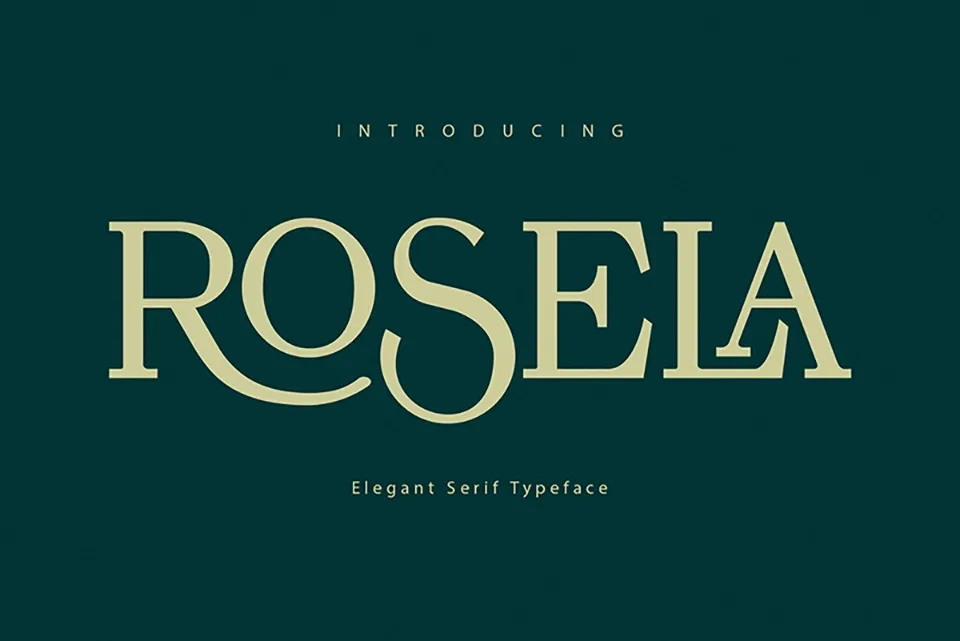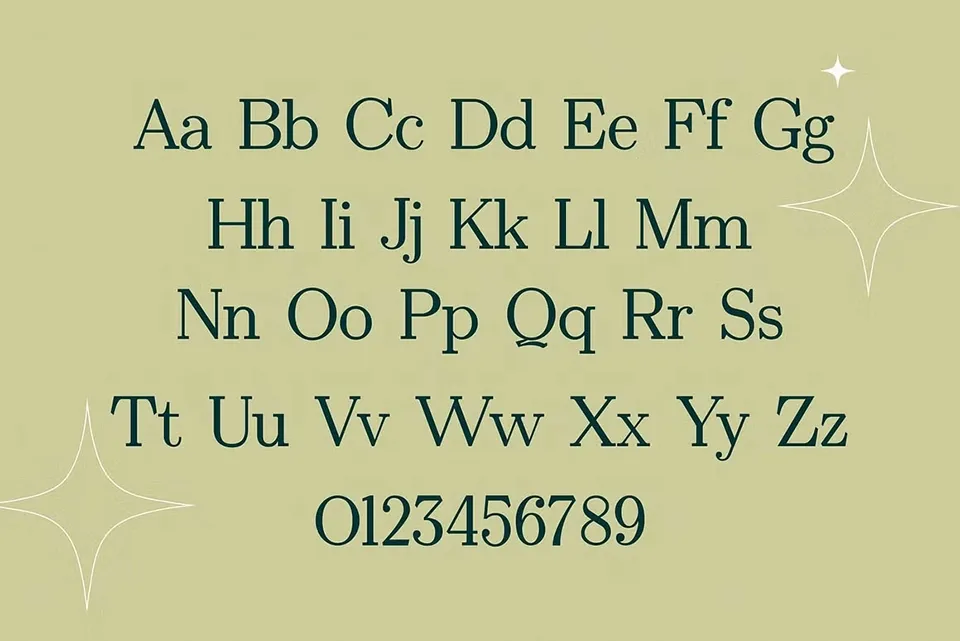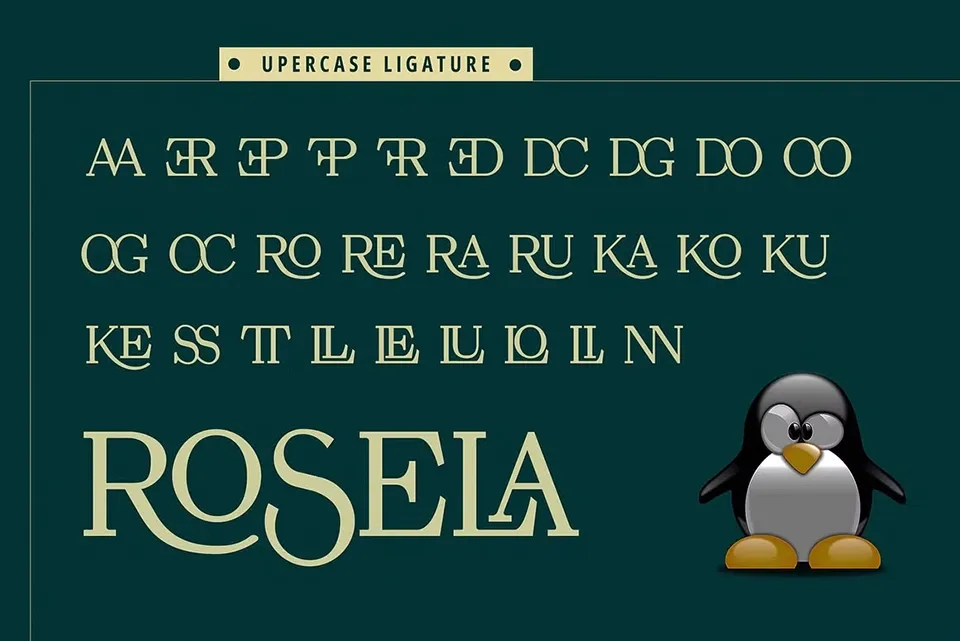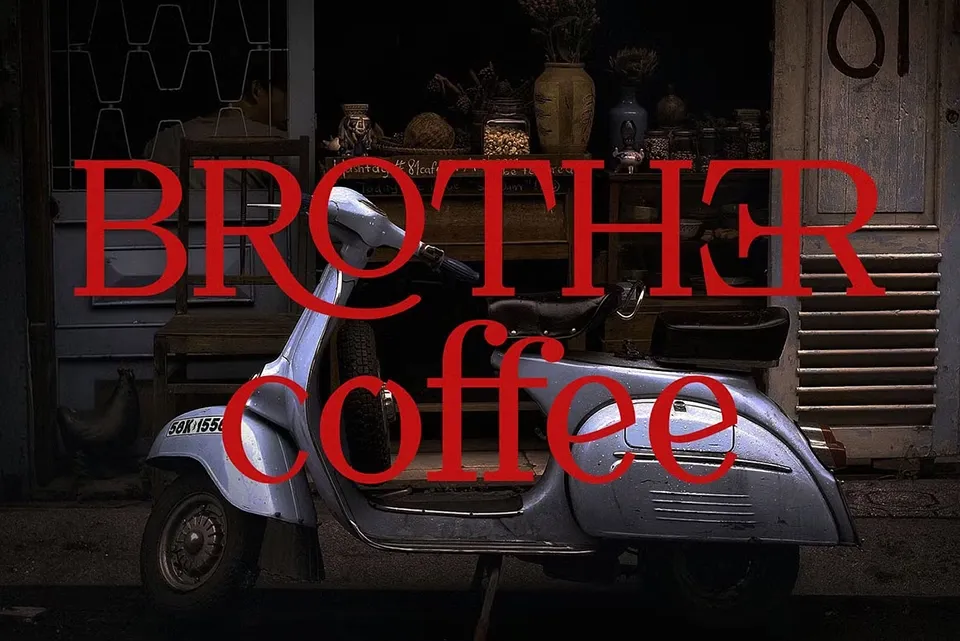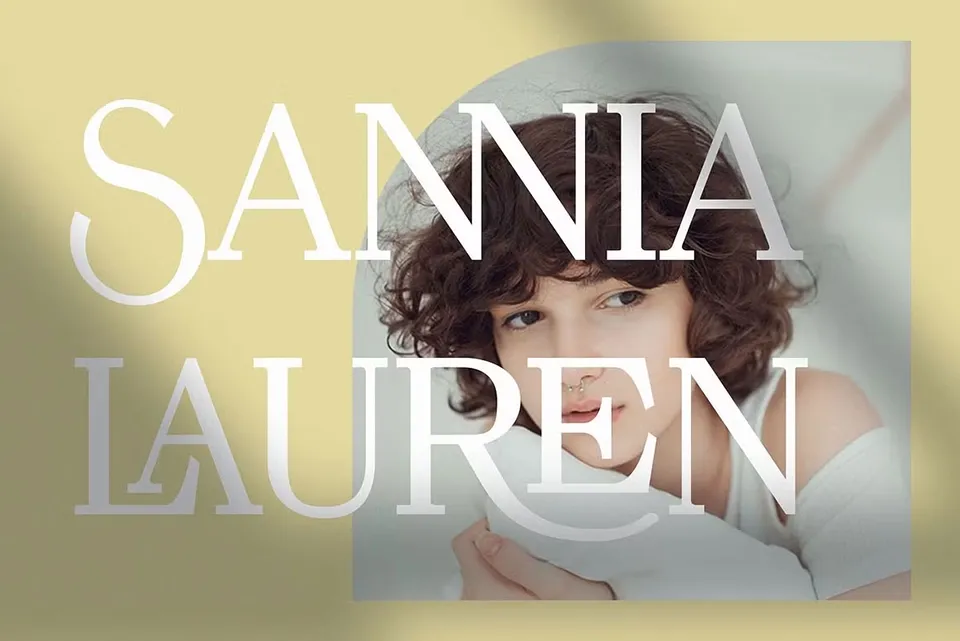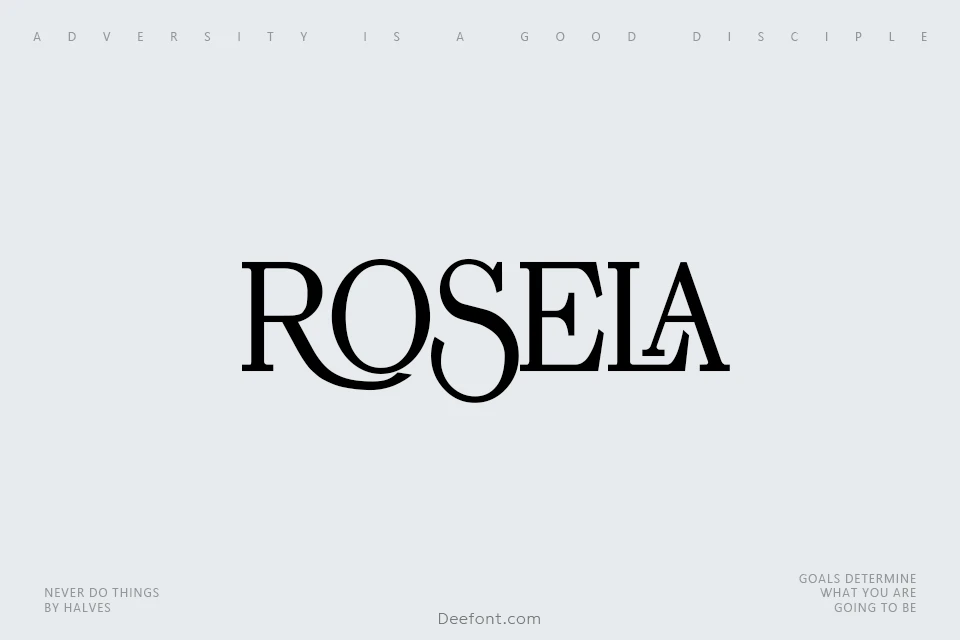
Rosela Serif Font
Rosela Serif Font is a high contrast serif typeface that blends modern and classic design elements. It supports multilingual characters, numbers, punctuation, and alternative ligatures, making it ideal for contemporary yet elegant typography. The neat lettering and subtle classic feel make Rosela Serif Font perfect for projects that require a sophisticated and visually pleasing touch.